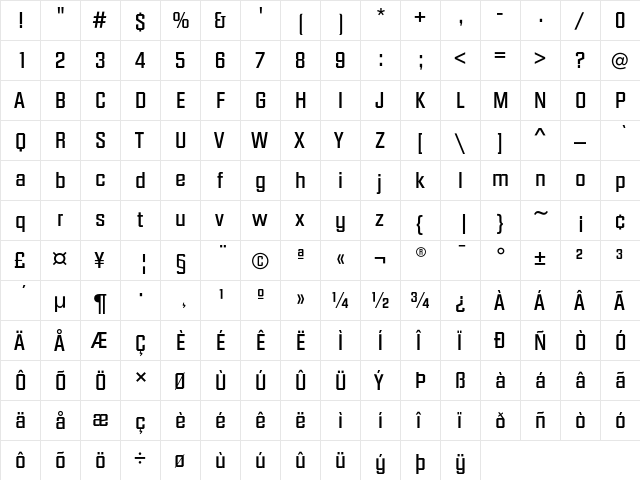
DiamanteEF Medium
Design Context for DiamanteEF Typeface
DiamanteEF takes a measured approach to typography — its balanced proportions and neutral character make it a reliable workhorse for both digital and print work.